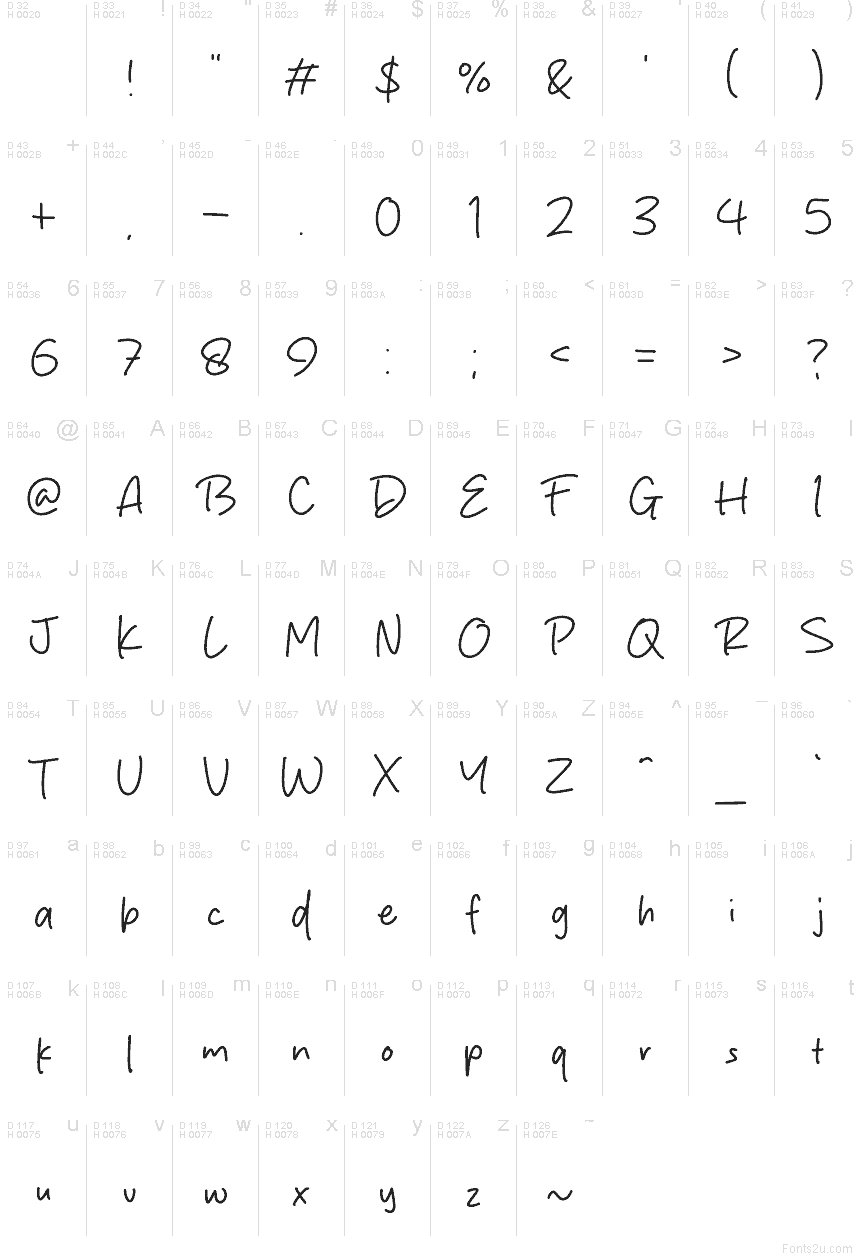
Brilliant Moment
Brilliant Moment font by MJType is a free handwritten font that captures the ease of real ink on paper without sacrificing clarity. Its letters are loose and breezy, with gentle curves and slightly uneven strokes that feel personal, yet the spacing stays tidy enough for longer lines of text. The result is handwriting that looks spontaneous and human, but reads quickly at a glance.
Using Brilliant Moment, this free font shines on quote graphics, social posts, photo captions, casual logos, packaging, invitations, and friendly email headers. It brings a relaxed, conversational tone wherever you need words to feel “written by hand” instead of “generated.” Pair it with a clean sans-serif for body copy and let Brilliant Moment handle headings or short phrases at a slightly larger size for maximum charm.